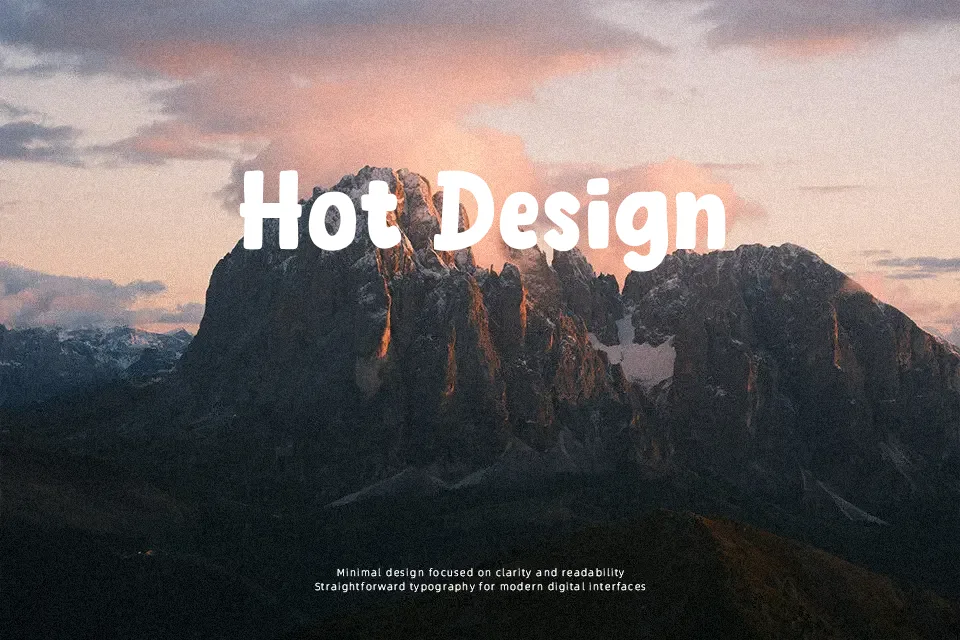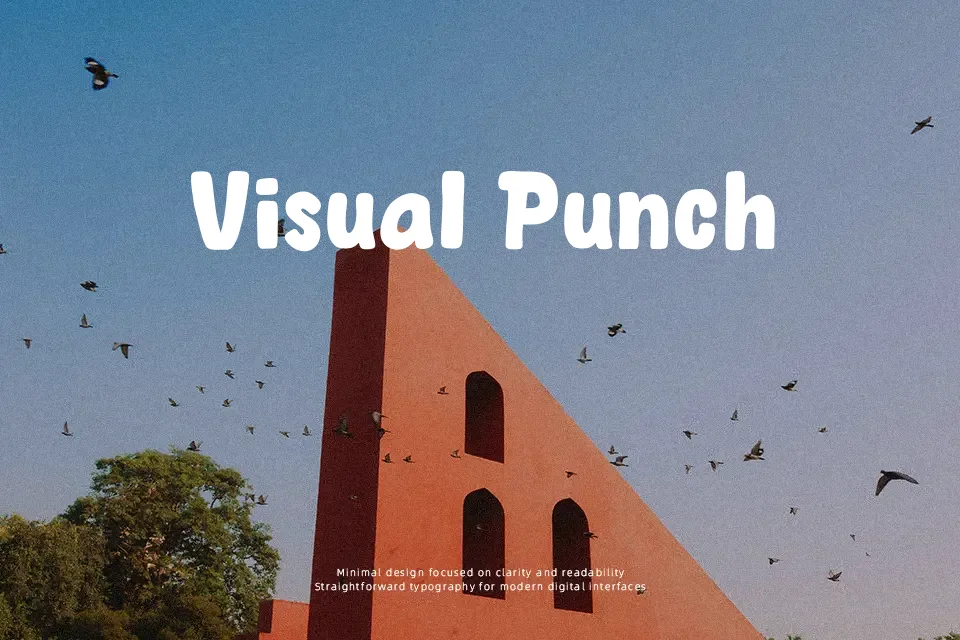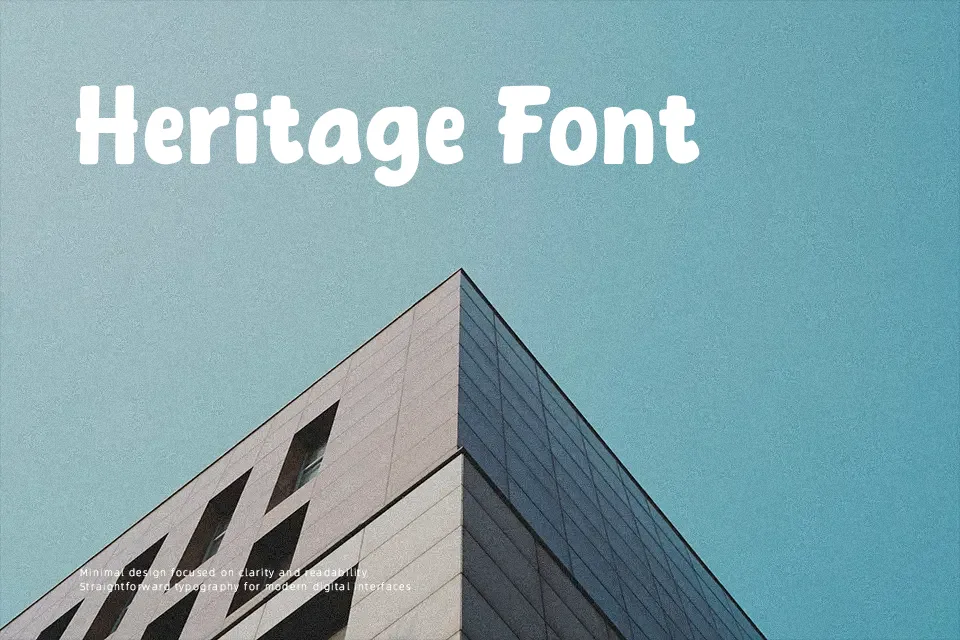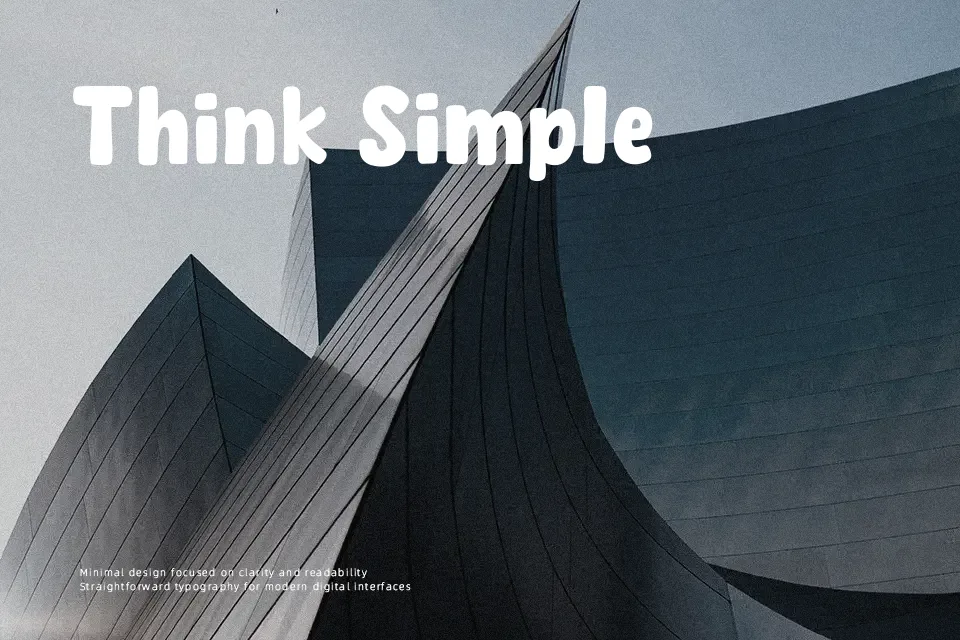
Spicy Pizza Font
Designed by Khurasan
Spicy Pizza Font uses thick, rounded letterforms with a soft cartoon construction and gently uneven visual rhythm. The strokes appear broad and low in contrast, while the proportions favor an approachable display look rather than a strict geometric structure. Its spacing supports short words and stacked headlines, helping the forms remain recognizable at larger sizes. The typeface works naturally for food-related graphics, casual labels, and playful promotional layouts. Small text and dense lines can feel crowded because the heavy shapes leave less internal space, so it is more effective as a headline face than for extended reading.
Best For: restaurant signage,food packaging,children’s party posters,casual social media graphics